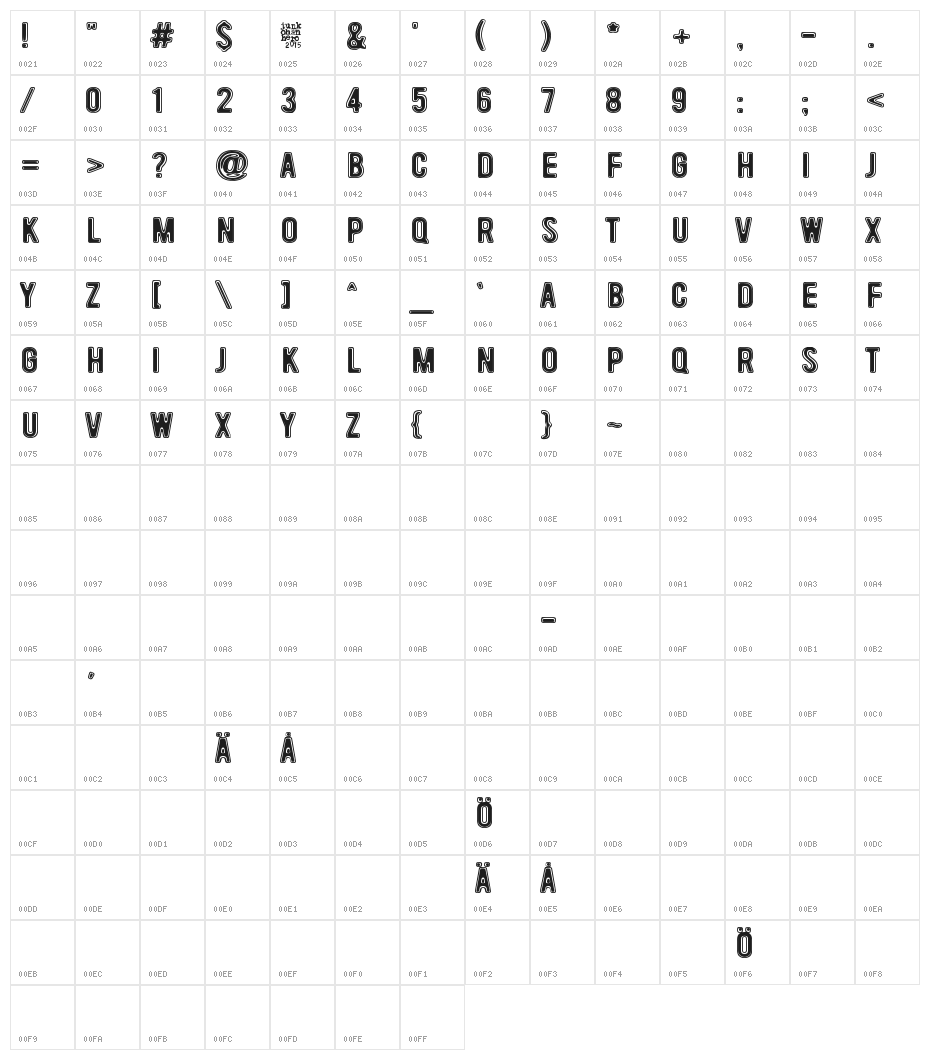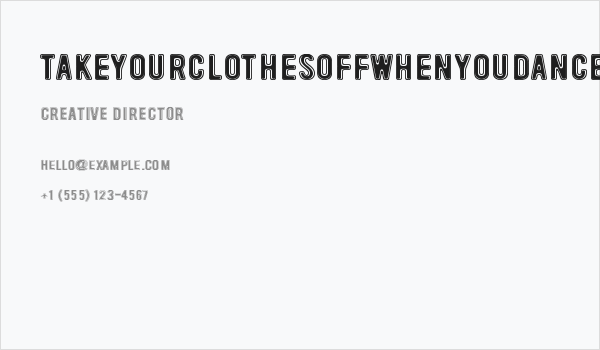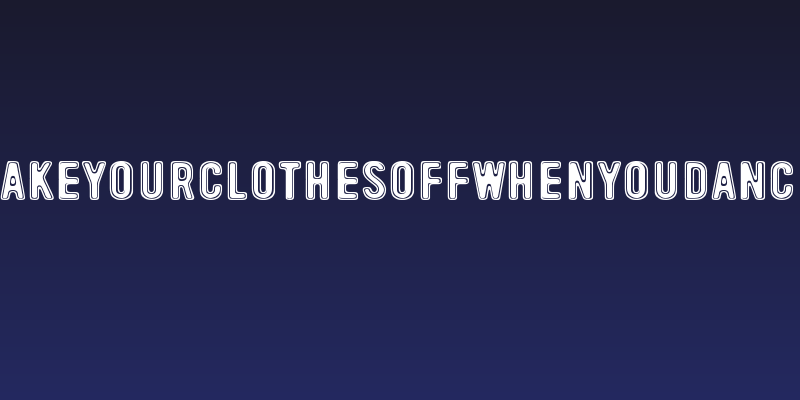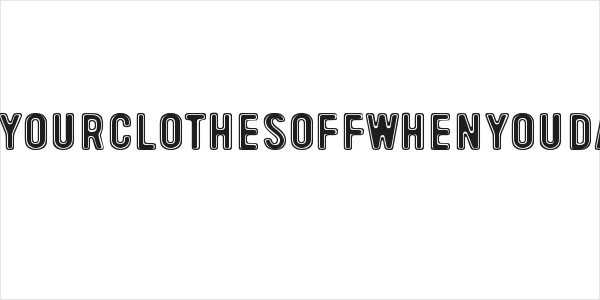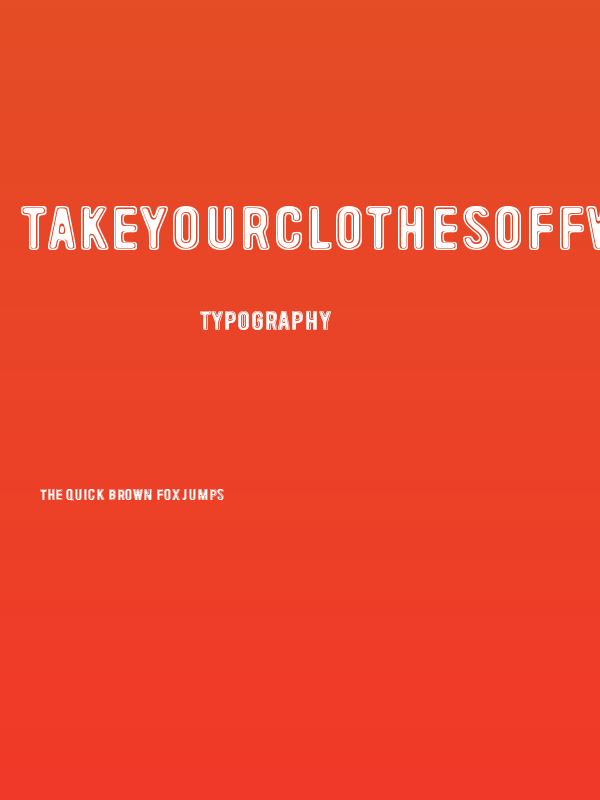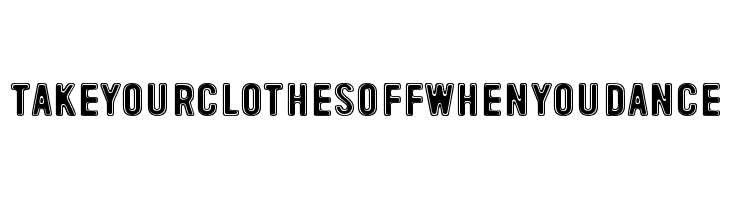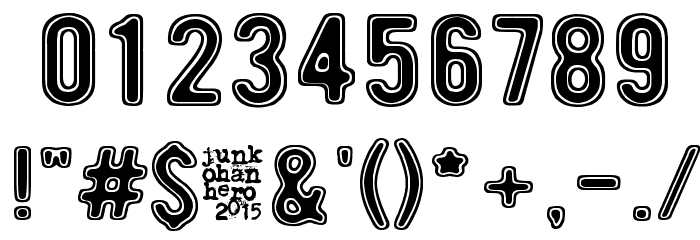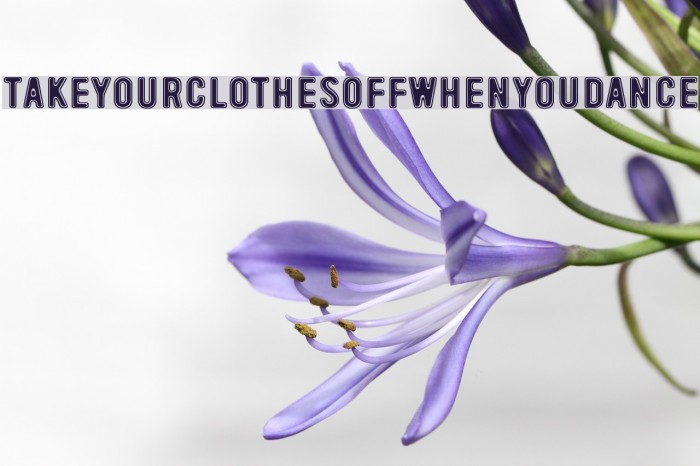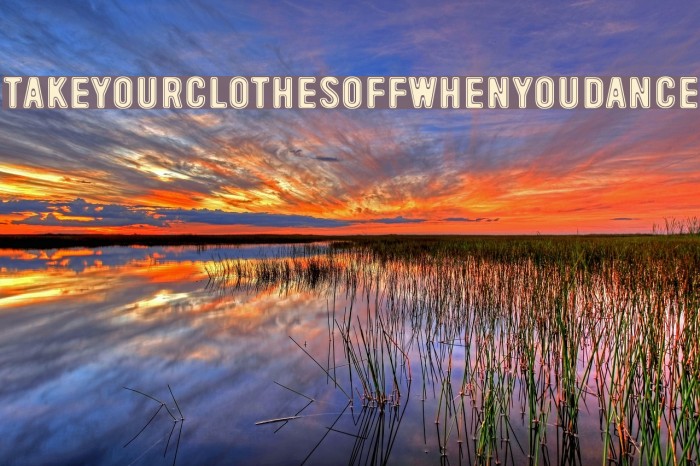
TakeYourClothesOffWhenYouDance Font
TakeYourClothesOffWhenYouDance Description
This bold, decorative font features a playful and eye-catching outline style, perfect for grabbing attention. Each character is designed with a thick outer border that creates a striking visual impact. The uppercase and lowercase letters maintain a consistent style, offering a cohesive look across different text sizes. The numerals and special characters are crafted with the same bold outline, ensuring uniformity throughout. This font's unique design makes it ideal for projects that require a fun and engaging aesthetic.
| Overall Style | Playful, Modern |
| Proposed Projects | Ideal for posters, event flyers, children's book covers, and playful branding projects. |